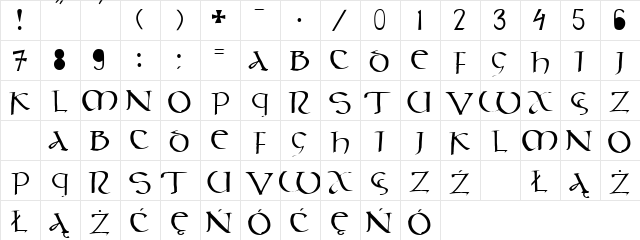
Celt Script
| Style | Script |
Design Context for Celt Typeface
Celt flows with the natural rhythm of handwritten lettering, making it ideal for designs that call for warmth and personal expression.
Font Pairing: Combine Celt with a simple geometric sans for maximum contrast — the tension between flowing curves and clean structure is a classic typographic pairing.
Pro Tip: Use Celt for short runs of text — names, titles, or taglines. Extended body copy in script faces tires the eye quickly.